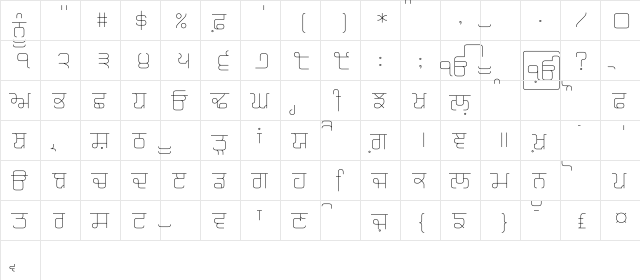
Magaz Thin Short
Design Context for Magaz Thin Typeface
Magaz Thin takes a measured approach to typography — its balanced proportions and neutral character make it a reliable workhorse for both digital and print work. The delicate stroke weight brings airiness and refinement to layouts.